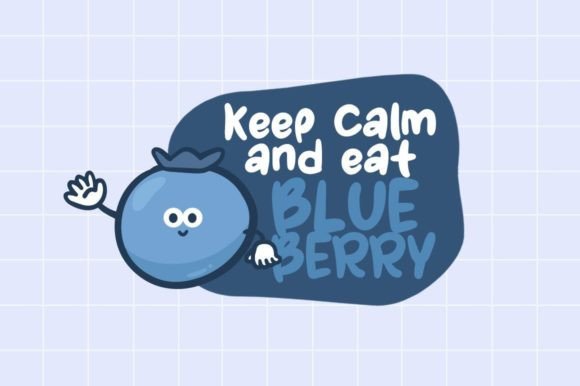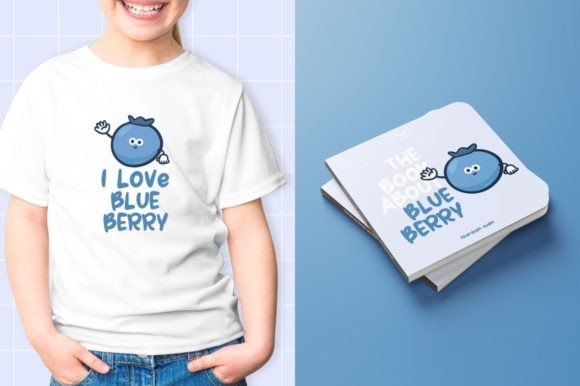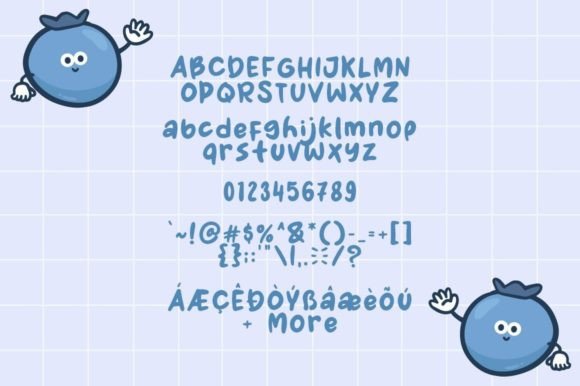
Meet Blueberry Days Font, a fun and cool display font that’s specifically designed to add a playful touch to your creations. Whether you’re working on cartoon-related designs, children’s games, or just anything that requires a dash of whimsy, this font is the perfect choice for your next project. Its versatility and charm make it an invaluable asset for designers looking to add a personal touch to their work.
- Unique Characteristics: Whimsical, handwritten style with a touch of nostalgia; ideal for creating a warm and inviting atmosphere in designs
Review of Blueberry Days Font
I’ve had the chance to work with the Blueberry Days font, and overall, it’s a charming addition to any design project. Here are a few things that stood out to me:
- ✨ Unique Character: Blueberry Days font has a distinct personality that’s sure to grab attention. It’s perfect for projects that need a bit of whimsy and fun.
- ✨ Versatility: Despite its playful feel, the font is surprisingly versatile and can work well in a variety of contexts, from branding to editorial design.
- ✨ High-Quality Renditions: The font’s high-quality renditions across different sizes and resolutions make it a great choice for designers who value precision and detail.
- ⚠️ Limited Font Weight Options: At the moment, the font only comes in a few weights, which can limit its use in certain design scenarios. More weight options would be a welcome addition.
- ⚠️ Not Ideal for Small Text: Due to its intricate design, Blueberry Days font may not be the best choice for small text or body copy, as it can be difficult to read at those sizes.
Overall, I think Blueberry Days font is a great choice for designers who want to add a bit of personality to their work. While it may not be perfect, its unique character and versatility make it a valuable addition to any design library.
The Blueberry Days Font is perfect for:
- Summer-themed designs and projects.
- Children’s book illustrations and designs.
To get the most out of the Blueberry Days Font, try:
- Pairing it with bold, bright colors to create a fun and playful look.
- Using it for headings and titles to add a touch of whimsy.
- Experimenting with different font sizes and styles to create visual interest.
Alternative Fonts to Blueberry Days
Oswald is a sans-serif font that is often used for headings and titles due to its strong and modern look. It is a great alternative to Blueberry Days Font when you need a clean and simple design. Oswald is more versatile than Blueberry Days and can be used for a variety of projects, from business cards to website headers.
Comparison: Oswald is more geometric and modern compared to Blueberry Days Font, which has a more playful and whimsical feel.
Great Vibes is a script font that is perfect for creating a fun and casual atmosphere. It is ideal for use in projects that require a touch of personality and warmth, such as invitations, social media graphics, and advertising materials. Great Vibes Font is a good choice when you want to add a playful and carefree feel to your design.
Comparison: Great Vibes Font is more cursive and fluid compared to Blueberry Days Font, which has a more stylized and modern look.
Playfair Display is an elegant and luxurious font that is perfect for use in high-end projects, such as luxury branding, invitations, and special event materials. It is a great alternative to Blueberry Days Font when you need a sophisticated and refined design. Playfair Display Font is more ornate and luxurious compared to Blueberry Days Font, which has a more playful and modern feel.